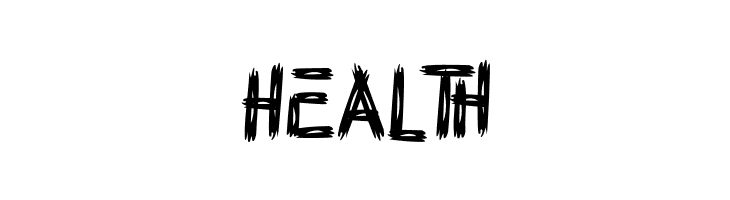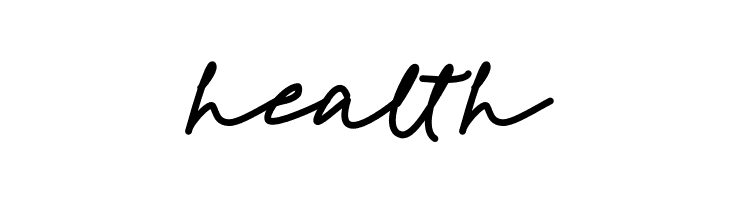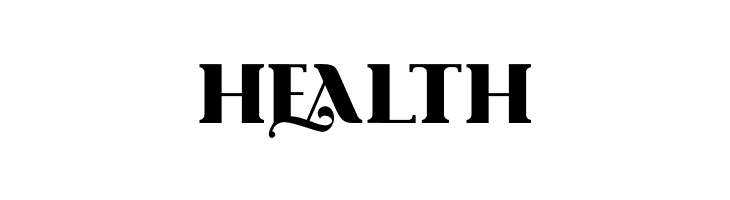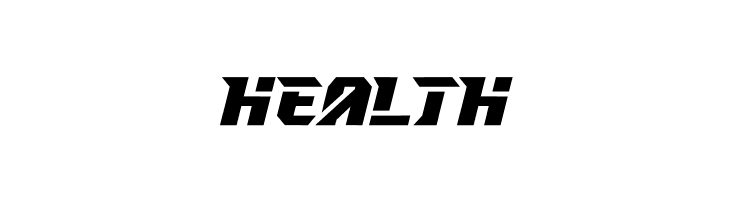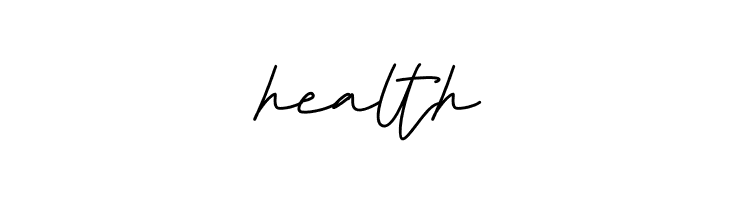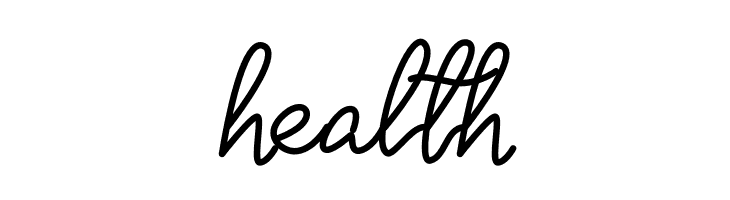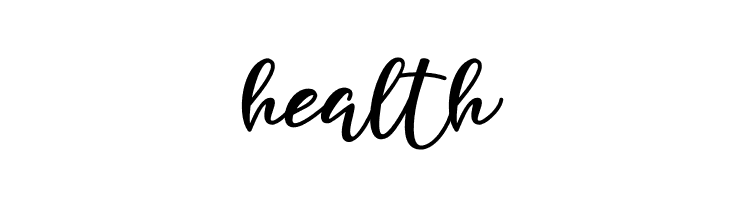
A playful, handwritten script font with dynamic curves and varying stroke widths.
A bold, brushstroke-style font with an energetic, hand-drawn appearance.
A cursive, handwritten-style font with smooth, flowing strokes.
A bold, decorative font with ornate serifs and high contrast, perfect for creative designs.
A dynamic and fluid script font with elegant, flowing strokes.
A sophisticated, flowing script font with a handwritten style.
A lively handwritten font with fluid strokes and a playful tilt.
A bold, gothic-style font with sharp, angular lines and a medieval influence.
A lively, cursive script font with medium contrast and fluid strokes.